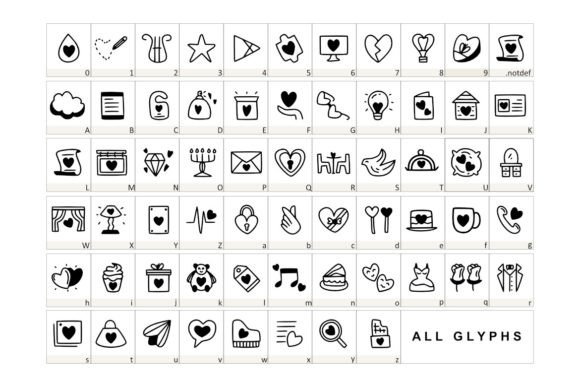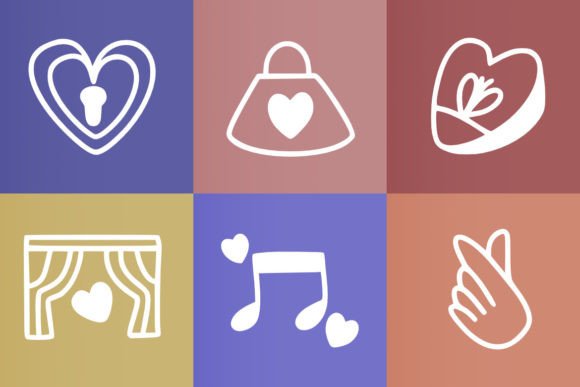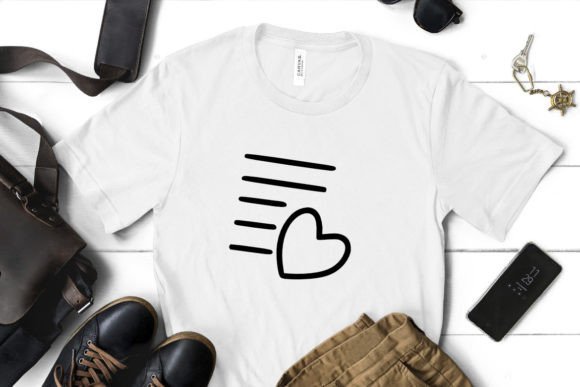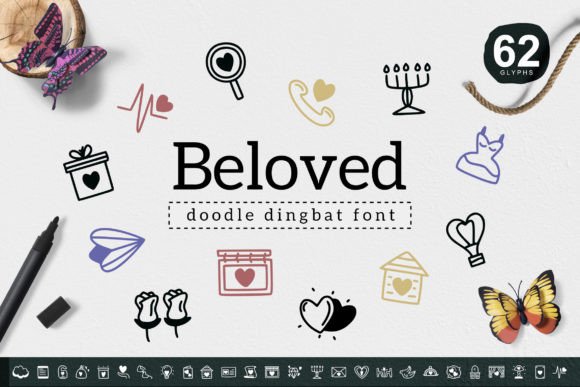
Introducing Beloved Font: The Ultimate Dingbats Font for Creative Projects
Are you a designer, crafter, or DIY enthusiast looking for a versatile and adorable font to elevate your creative projects? Look no further than Beloved Font, a charming dingbats font that’s perfect for a wide range of applications. In this article, we’ll dive into the features and benefits of Beloved Font, and explore how it can add a touch of personality to your designs.
What is Beloved Font?
Beloved Font is a delightful dingbats font that’s designed to bring a smile to your face. Its cute and playful characters make it an ideal choice for projects that require a personal touch. Whether you’re creating stickers, posters, t-shirts, cards, or apparel graphics, Beloved Font is the perfect companion to help you achieve professional-looking results.
Key Features of Beloved Font
- Cute and Playful Characters: Beloved Font features a range of adorable characters that are sure to capture the hearts of your audience. From sweet animals to charming symbols, this font has everything you need to create engaging designs.
- Versatile and Adaptable: Beloved Font is designed to be versatile and adaptable, making it perfect for a wide range of projects. Use it for kids’ designs, party themes, or even as a decorative element in your adult designs.
- High-Quality Design: Beloved Font is designed with high-quality graphics, ensuring that your designs look professional and polished.
Creative Ways to Use Beloved Font
Beloved Font is perfect for a wide range of creative projects, including:
- Stickers: Add a personal touch to your stickers with Beloved Font’s cute and playful characters.
- Posters: Create eye-catching posters for kids’ events, parties, or promotions using Beloved Font.
- T-Shirts and Apparel: Design custom t-shirts, hoodies, and other apparel items with Beloved Font’s adorable characters.
- Cards and Invitations: Add a touch of personality to your greeting cards, invitations, and thank-you notes with Beloved Font.
- Apparel Graphics: Use Beloved Font to create custom graphics for your business, including logos, icons, and social media graphics.
Why Choose Beloved Font?
With so many fonts available, why choose Beloved Font? Here are just a few reasons why Beloved Font stands out:
- Unique and Exclusive: Beloved Font is a unique and exclusive font that’s not commonly found in font libraries.
- Time-Saving: Beloved Font saves you time and effort by providing a wide range of pre-designed characters and symbols.
Tips and Tricks for Using Beloved Font
Here are some tips and tricks to help you get the most out of Beloved Font:
- Experiment with Colors: Beloved Font looks great in a variety of colors, so don’t be afraid to experiment and find the perfect hue for your design.
- Mix and Match Characters: Combine different characters and symbols to create unique and interesting designs.
- Use it with Other Fonts: Pair Beloved Font with other fonts to create visually appealing and dynamic designs.
Beloved Font is a charming dingbats font that’s perfect for designers, crafters, and DIY enthusiasts looking to add a personal touch to their creative projects. With its cute and playful characters, versatility, and ease of use, Beloved Font is an excellent choice for a wide range of applications. Whether you’re creating stickers, posters, t-shirts, or cards, Beloved Font is sure to bring a smile to your face and elevate your designs to the next level.